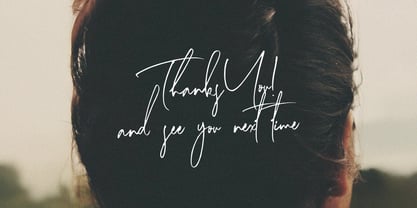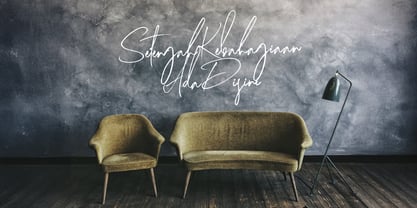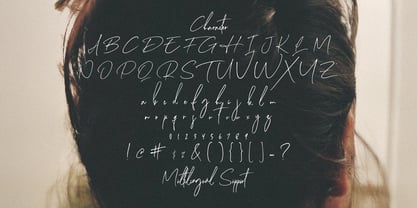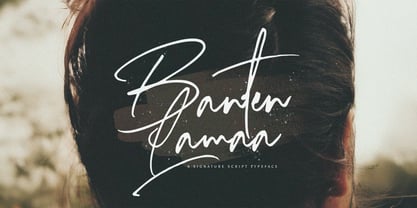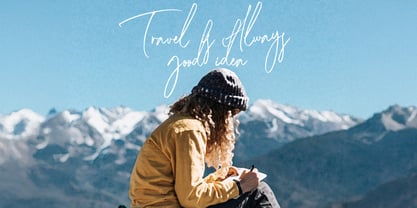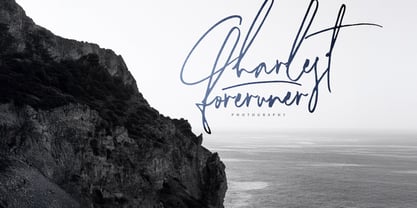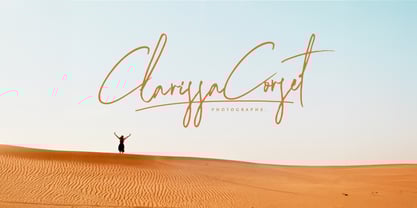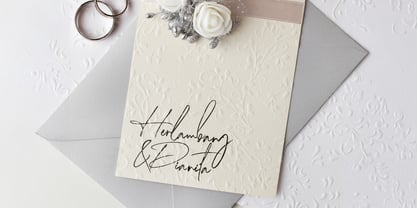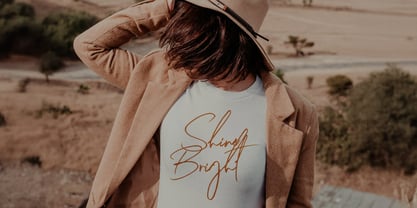
The Banten Lama Font Family was designed by Virgiawan Listanto and published by Stringlabs Creative Studio. Banten Lama contains 1 styles. More about this family
Banten Lama is a beautifully crafted handwritten typeface that exudes elegance and personality. Inspired by traditional calligraphy, this font is perfect for projects that need a sophisticated yet personal touch. With its smooth, flowing strokes and unique design, Banten Lama brings a sense of authenticity and charm to your creative works.
Designers: Virgiawan Listanto
Foundry: Stringlabs Creative Studio
Banten Lama